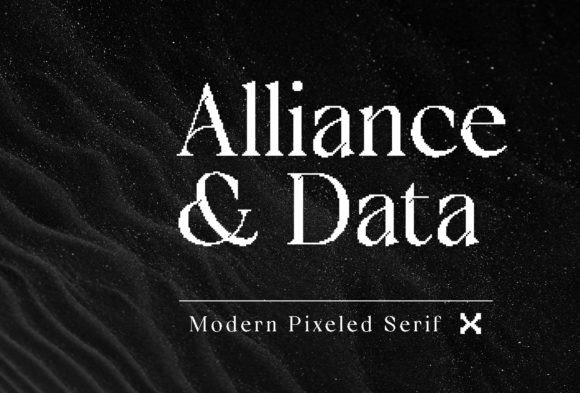
Unveil the Fusion: Where Modernity Meets Pixel Art in Alliance & Data
I’ll never forget the design project that led me to discover Alliance & Data. I was working on a branding campaign for a gaming company, and my client specifically requested a font that combined modern sleekness with a nostalgic pixel art feel. After hours of scouring font libraries and marketplaces, I stumbled upon Alliance & Data – and it was love at first sight! 💡
This innovative Serif font has been a game-changer for my design workflow, and I’m excited to share its awesomeness with fellow designers, crafters, and creative hobbyists. In this article, we’ll dive into the world of Alliance & Data, exploring its features, applications, and the creative possibilities it offers.
A Closer Look: What Makes Alliance & Data Special?
Alliance & Data beautifully marries modern design with pixelated charm, making it an incredibly versatile font for various creative projects. Here are some of its standout features:
• ✨ Distinctive Ligatures and Alternates: Alliance & Data boasts a range of ligatures and alternates, allowing you to add a touch of personality to your designs.
• ✅ Seamless Blend of Modern and Pixel Art: This font effortlessly combines contemporary aesthetics with nostalgic pixel elements, creating a unique visual identity.
• 🔥 Dynamic Toolset for Creative Expression: With Alliance & Data, you can experiment with different styles and moods, making it perfect for branding, web design, gaming interfaces, and artistic projects.
Honest Review: The Good, the Bad, and the Quirks
• ✨ The font’s versatility and range – it works beautifully for both digital and print projects.
• ✅ The attention to detail in its design, from ligatures to alternates.
• 💻 The font’s excellent legibility, even at smaller sizes.
• 🤔 Some users might find the font’s pixelated elements a bit too dominant, which could be overwhelming for certain designs.
• ⚠️ As with any font that uses OpenType features, some platforms or software might not fully support or display these features.
The creator of Alliance & Data drew inspiration from the nostalgic world of pixel art, combining it with modern design principles to craft a unique font. The goal was to create a typeface that would allow designers to evoke a sense of retro charm while maintaining a contemporary aesthetic. Through Alliance & Data, the designer aimed to provide a versatile tool for creatives to express themselves and bring their ideas to life.
Q: What type of projects is Alliance & Data best suited for?
A: Alliance & Data is an incredibly versatile font, making it suitable for a wide range of projects, including branding, web design, gaming interfaces, and artistic projects.
Q: Does Alliance & Data support OpenType features?
A: Yes, Alliance & Data takes advantage of OpenType features, including ligatures and alternates, to provide a rich set of typographic options.